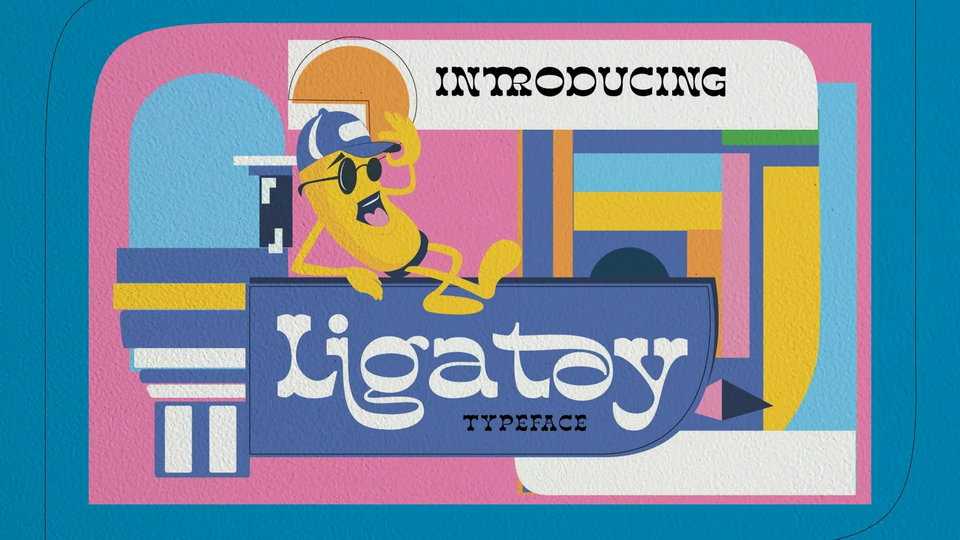
Download Ligatoy font, a reverse-contrast display typeface, inspired by the design styles of the 70s. Ligatoy is funny, groovy, classic, not serious but has aesthetic and unique value.